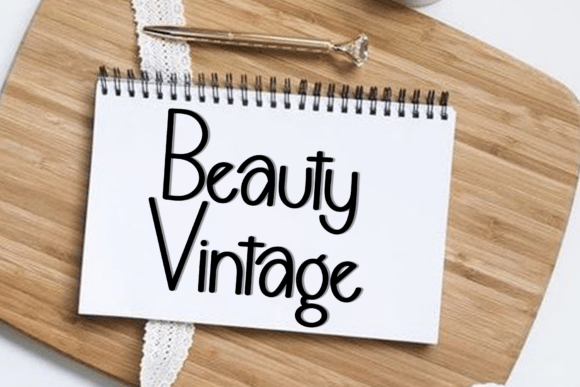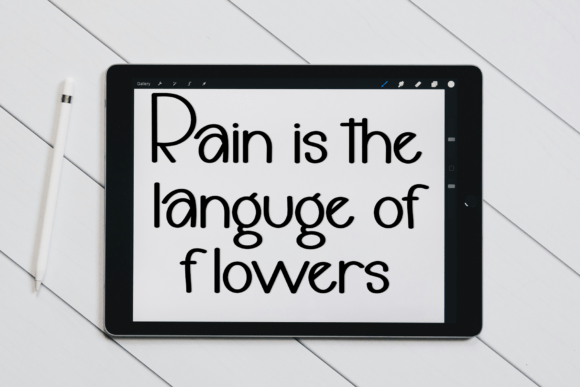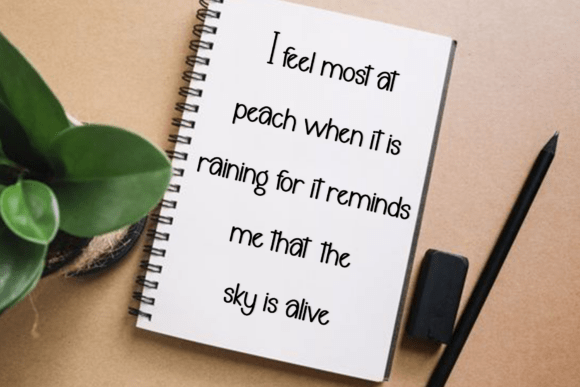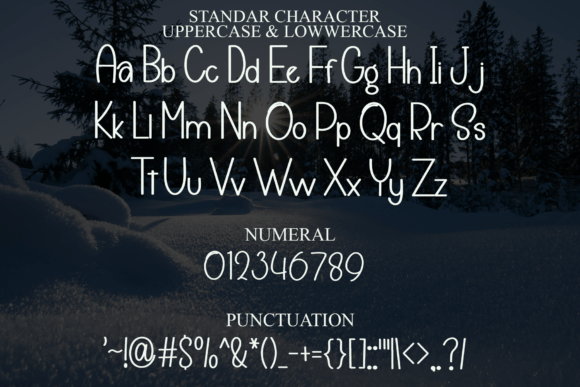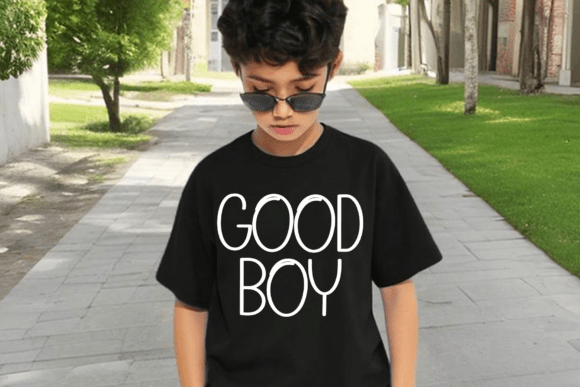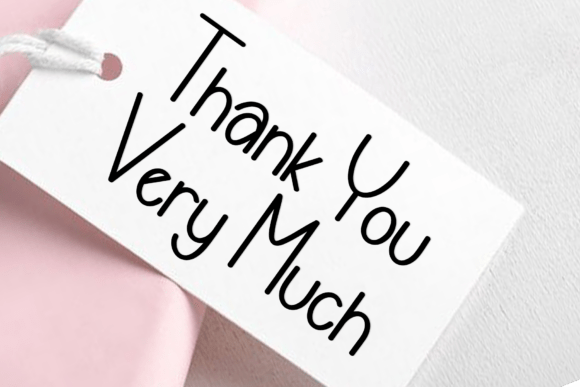
The Designer’s Delight: FEELING LOVELY Font
First Impressions: A Beautiful, Eye-Catching Font
The FEELING LOVELY font is a beautiful and eye-catching addition to any design project, crafted with a soft, unique touch that sets it apart from more traditional fonts. Its distinctive strokes give it a special character, making it not only meaningful but also incredibly versatile for future use. Whether you’re working on a logo, a poster, or a digital project, this font’s various characters make it perfect for a wide range of creative works.
So, what do I love about the FEELING LOVELY font? Here are a few highlights:
- ✨ Unique and eye-catching design: The font’s soft, distinctive strokes make it stand out in any design.
- ✅ Highly versatile: With various characters, it’s suitable for a wide range of projects, from crafts to professional design works.
However, no font is perfect, and there are a few quirks to be aware of:
- 🤔 Some characters may require manual adjustment: For optimal spacing and alignment, you might need to tweak certain characters.
- ⚠️ Not ideal for body text: Due to its decorative nature, FEELING LOVELY is best used for headings or titles rather than lengthy text.
The Story Behind FEELING LOVELY
While the true origins of FEELING LOVELY remain a mystery, it’s easy to imagine that its creation was inspired by a passion for beautiful typography and a desire to craft something that would bring joy to designers and their audiences. Perhaps the designer, fueled by a love for elegant scripts and a keen eye for detail, set out to create a font that would stand out in the world of digital design.
| Is FEELING LOVELY suitable for body text? | No, due to its decorative nature, FEELING LOVELY is best used for headings or titles rather than lengthy text. |
| Does FEELING LOVELY support OpenType features? | Yes, FEELING LOVELY supports OpenType features, including glyphs and stylistic alternates, which can be accessed in compatible applications. |
In conclusion, the FEELING LOVELY font is a beautiful and versatile addition to any designer’s toolkit. Its unique charm, cross-platform compatibility, and extensive character set make it perfect for a wide range of creative projects. Whether you’re a seasoned designer or a crafting hobbyist, FEELING LOVELY is sure to enhance your designs and appeal to a broad audience.